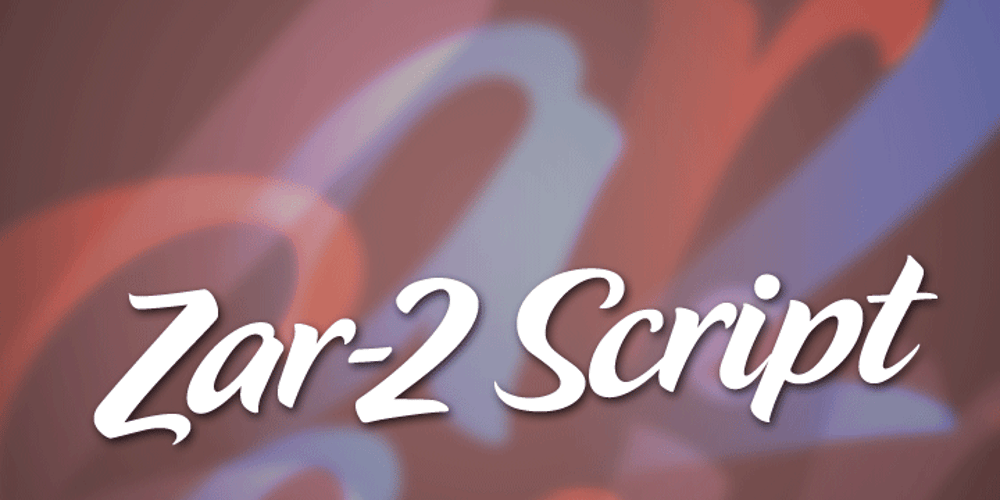
Zar2 Script Font Family was designed by Randy Szarzynski and published by SzarDesign. Zar2 Script contains 1 styles and family package options. Zar-2 Script a brush inspired script with flair, designed to work with Zar-2 casual